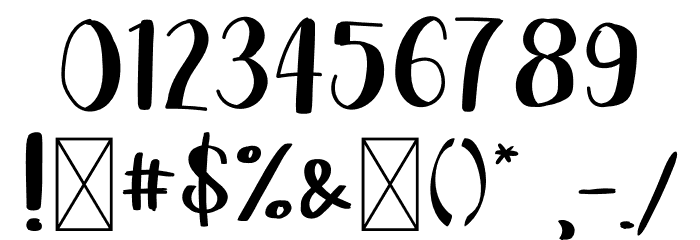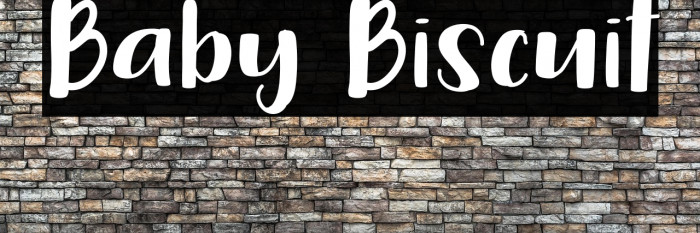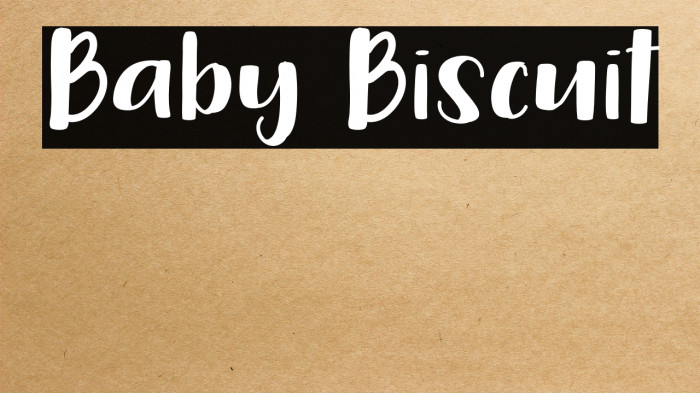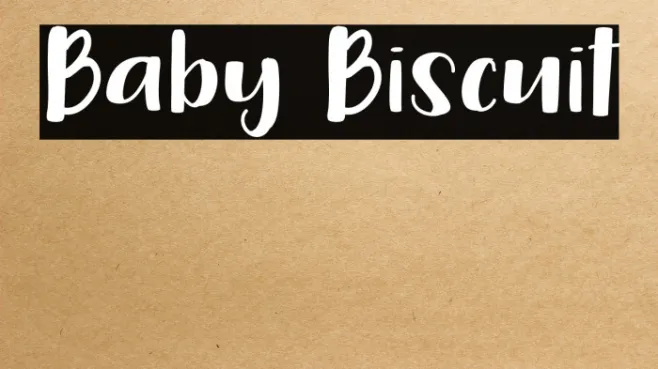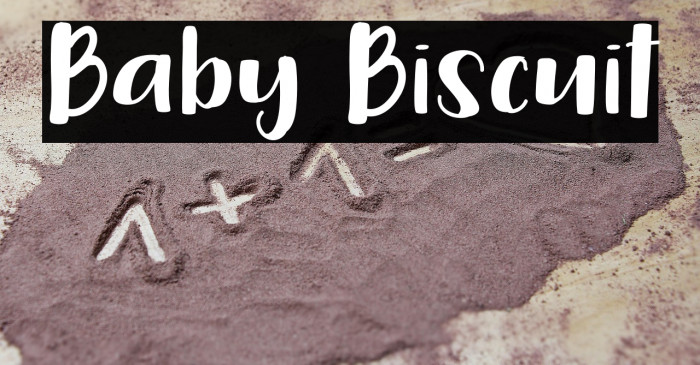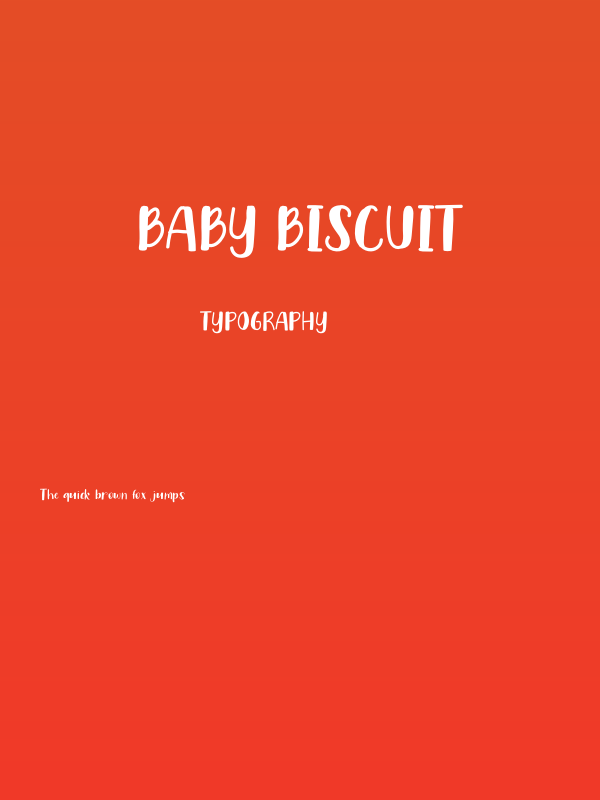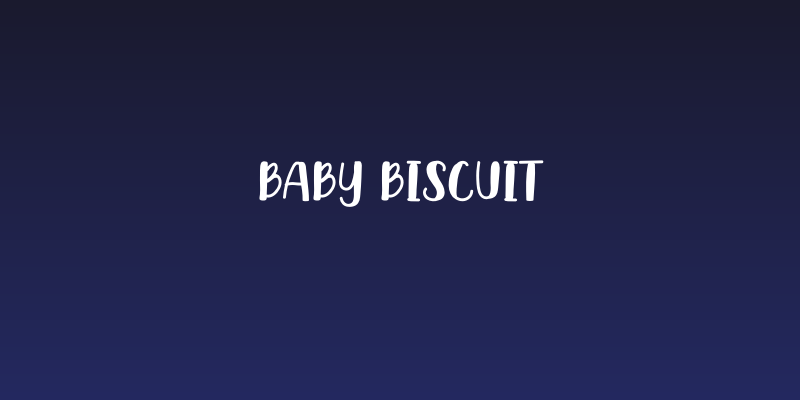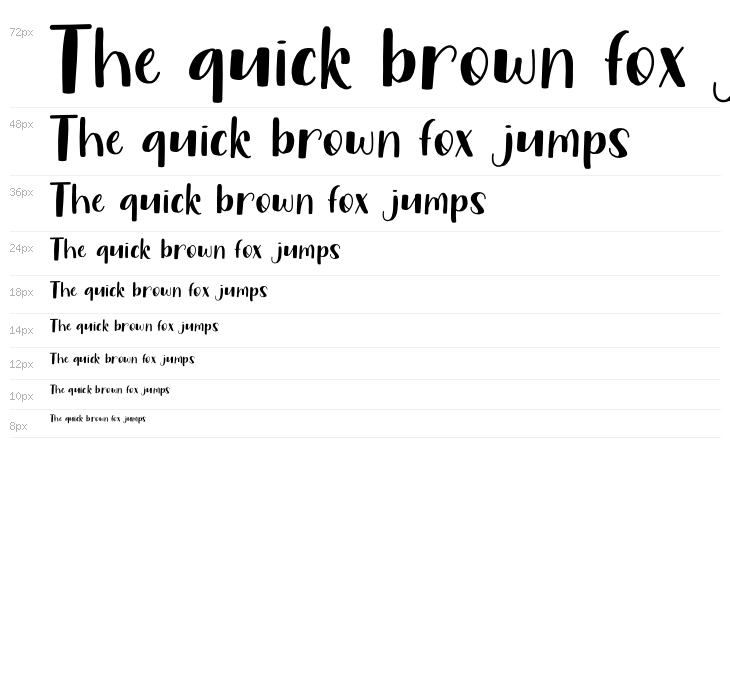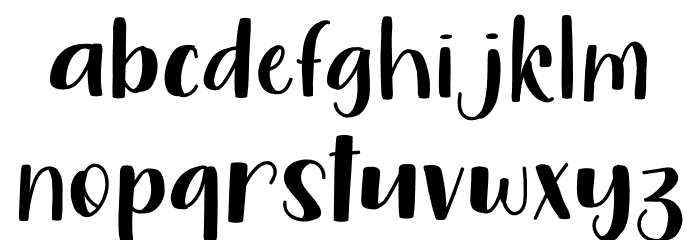
Baby Biscuit Font
Baby Biscuit Description
This playful and whimsical font features a hand-drawn style with a casual, friendly appearance. The letters are bold and slightly irregular, giving them a charming, informal look. The uppercase and lowercase letters are well-balanced, with a consistent stroke width that adds to the font's cohesive feel. The numbers and special characters maintain the same playful aesthetic, making it versatile for various creative projects. The font's unique style is perfect for designs that require a touch of fun and personality.
| Proposed Projects | Ideal for children's book covers, playful branding, greeting cards, and creative posters. |